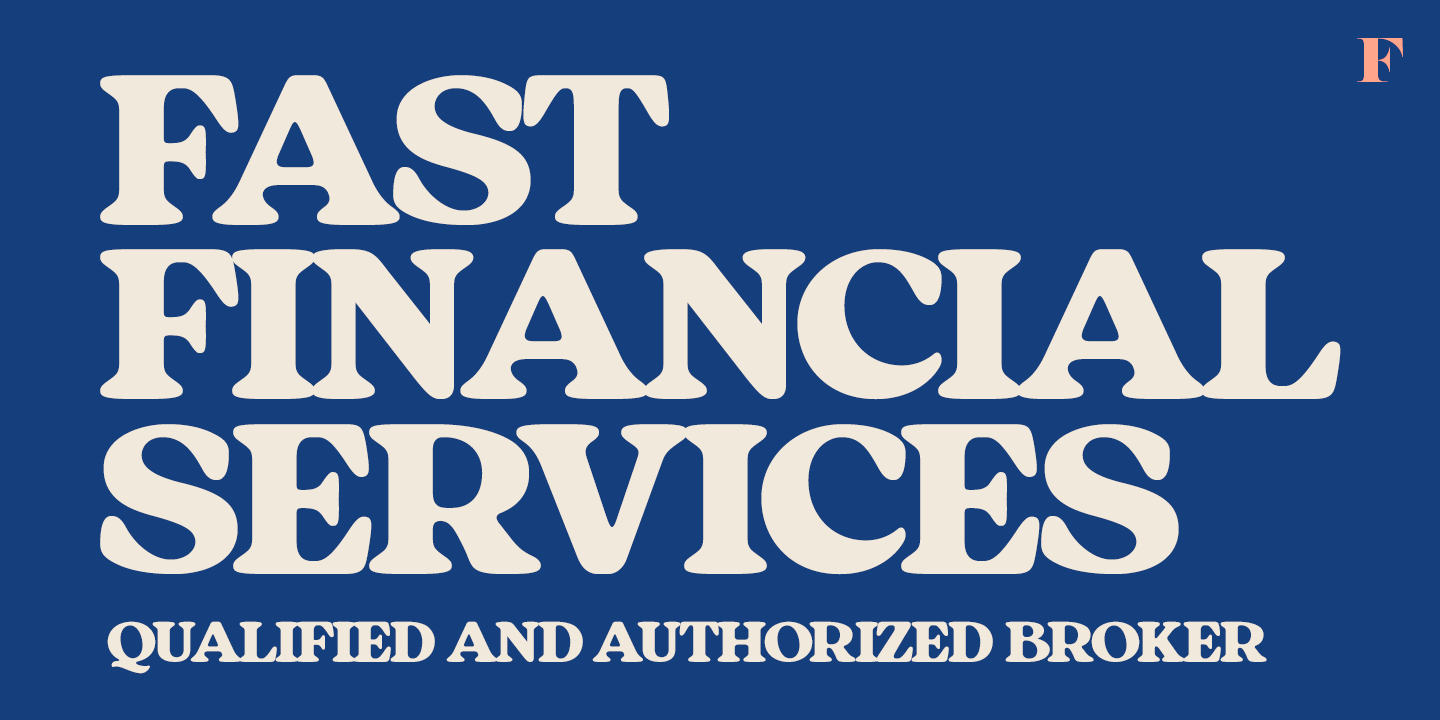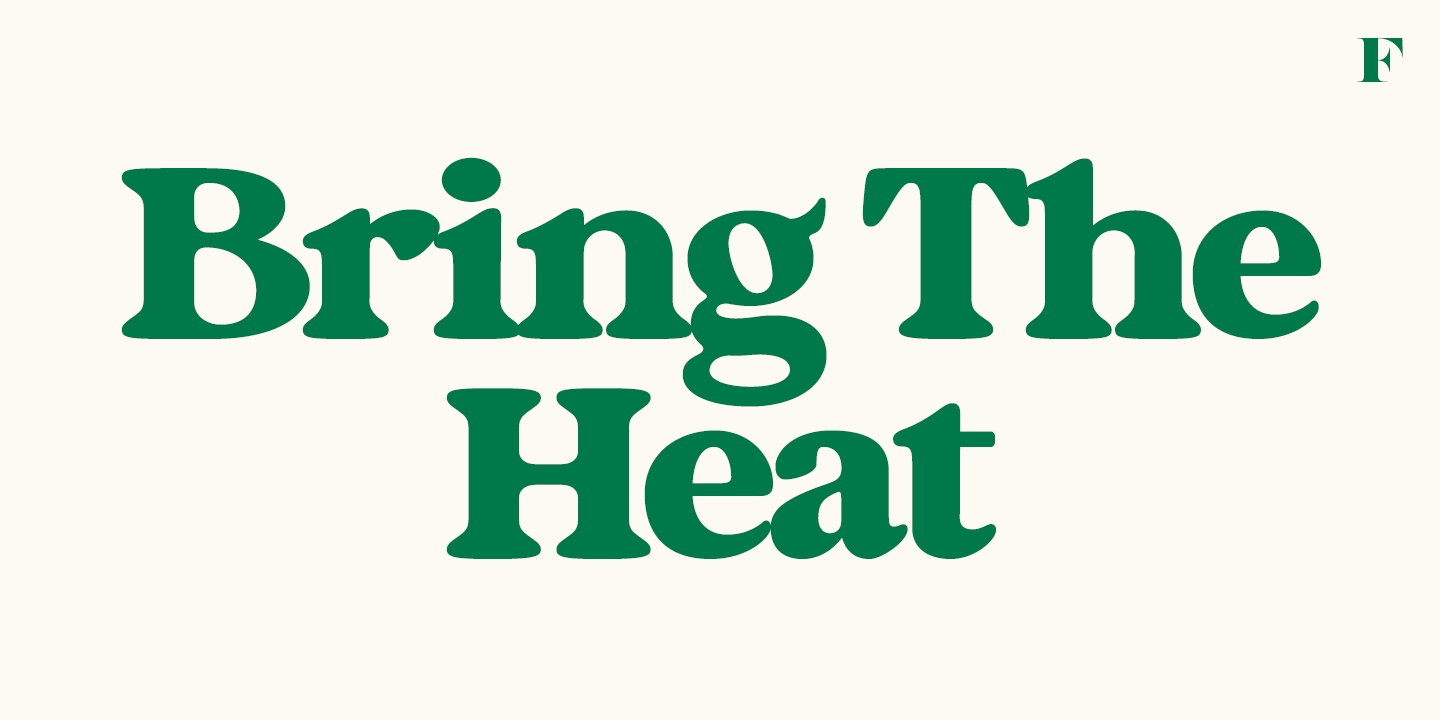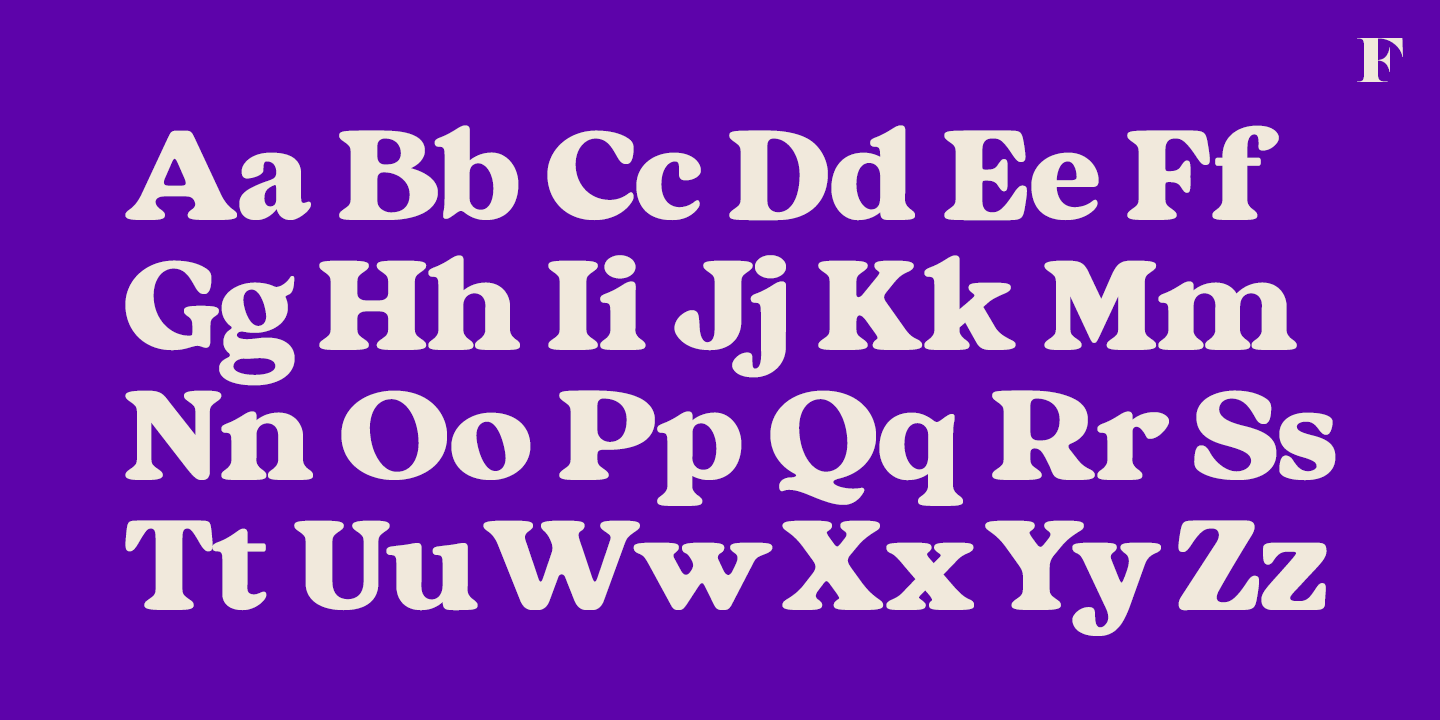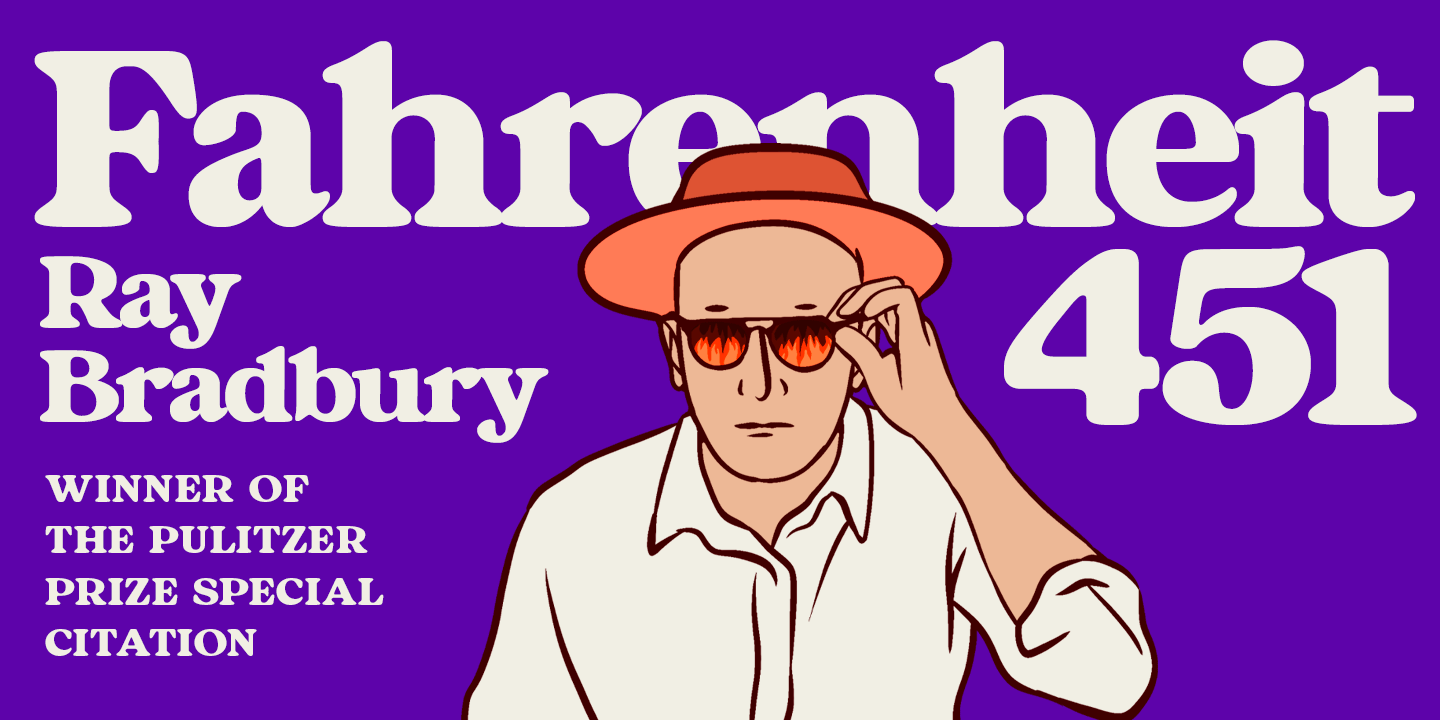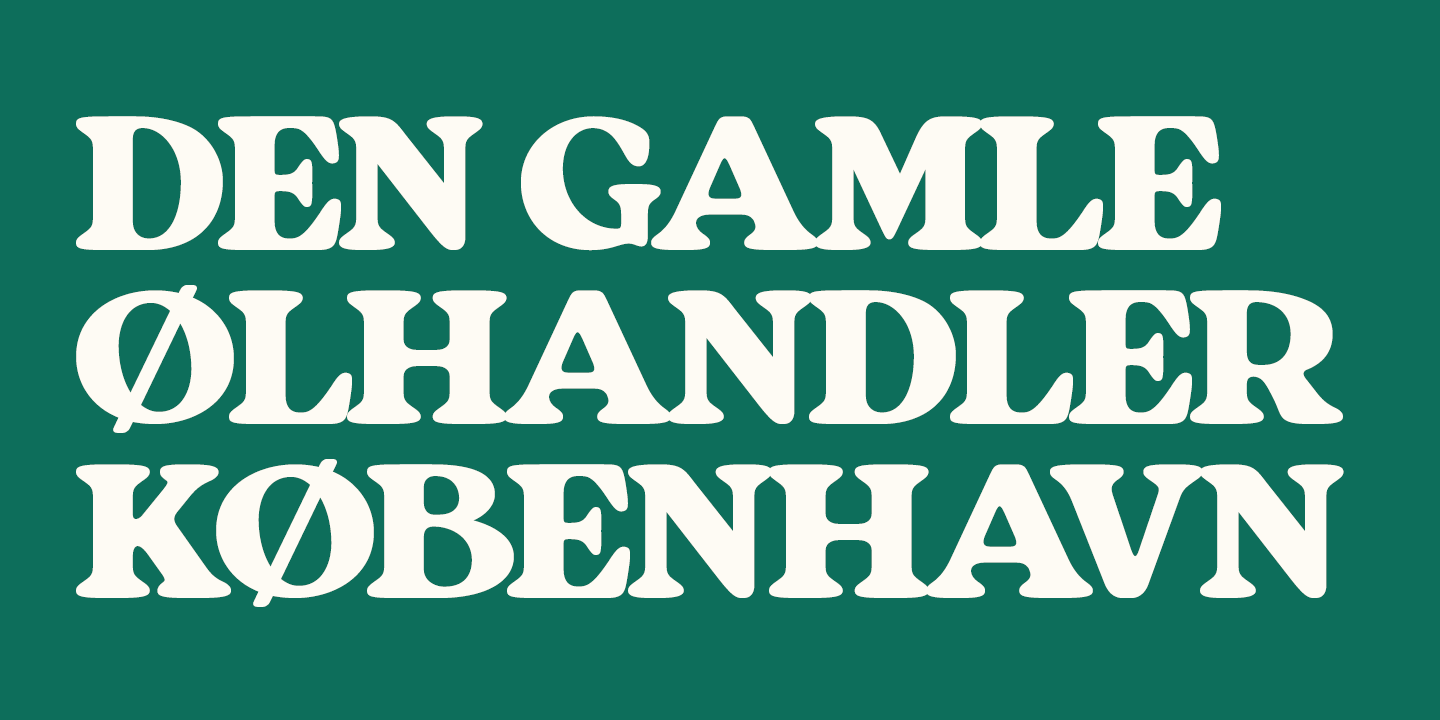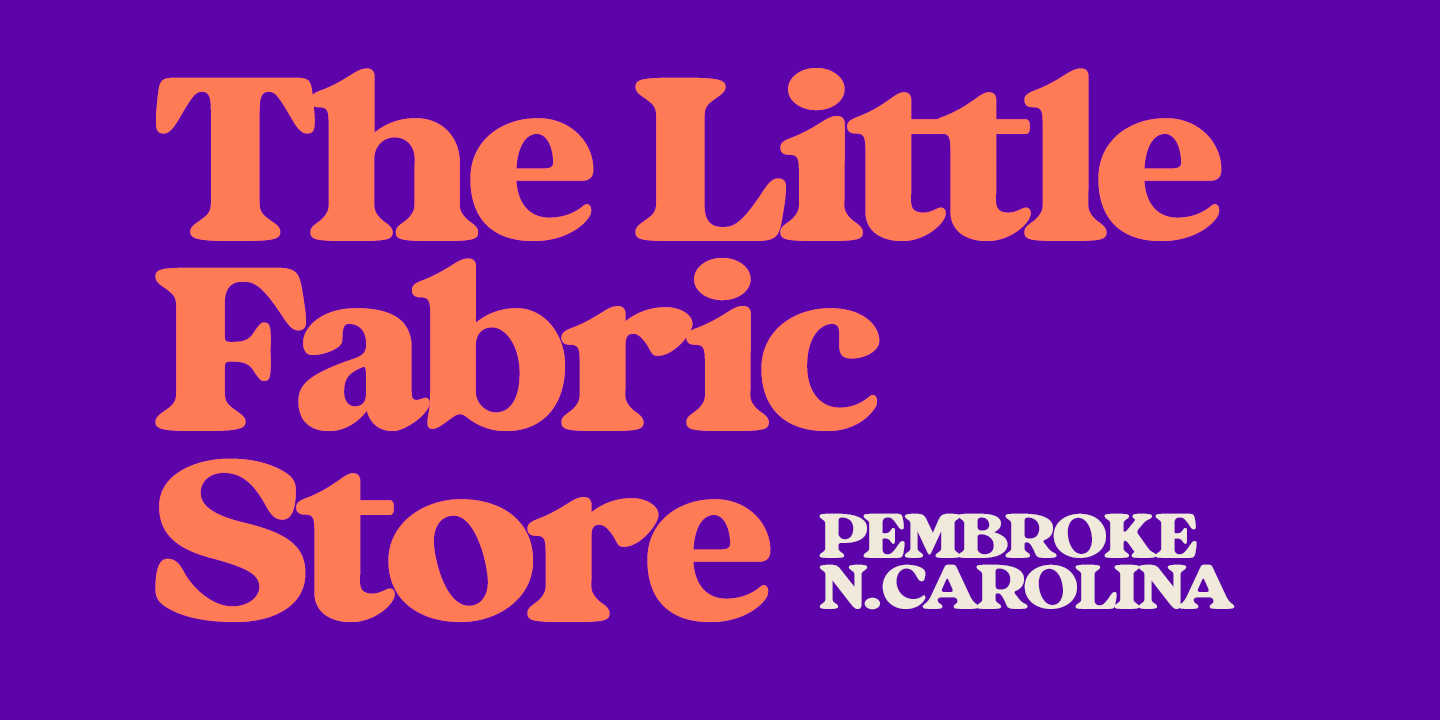
A stalwart vintage serif, Master Press displays rounded features and a resolute character in its design. Ideal for book covers, posters, labels, and any application requiring a sense of sturdiness and safety, Master Press delivers precisely that. Master…